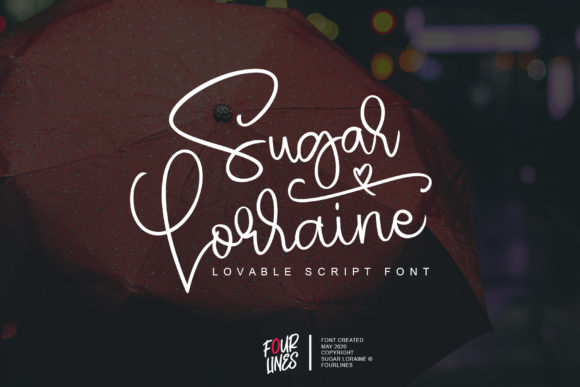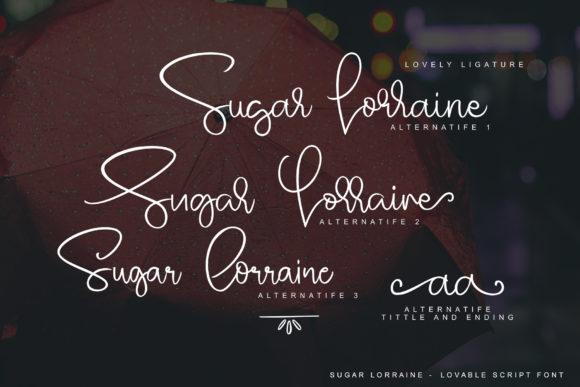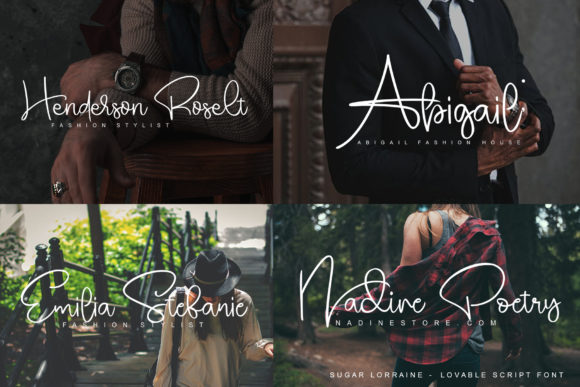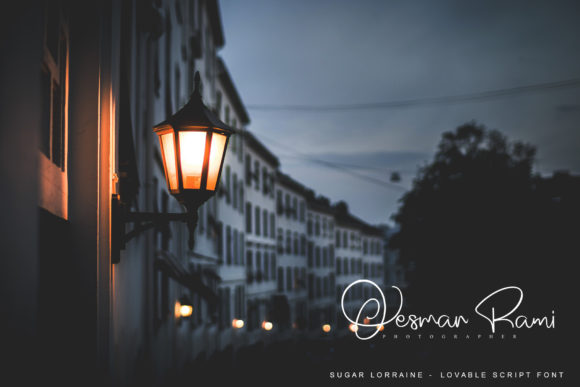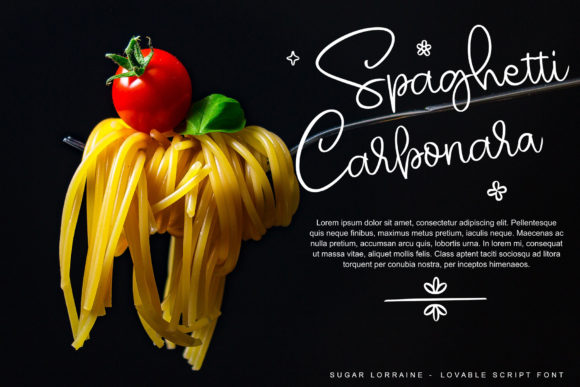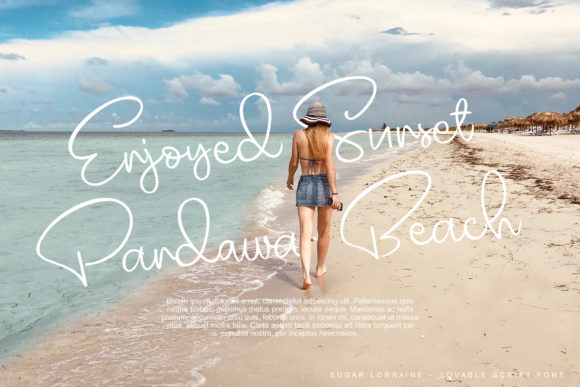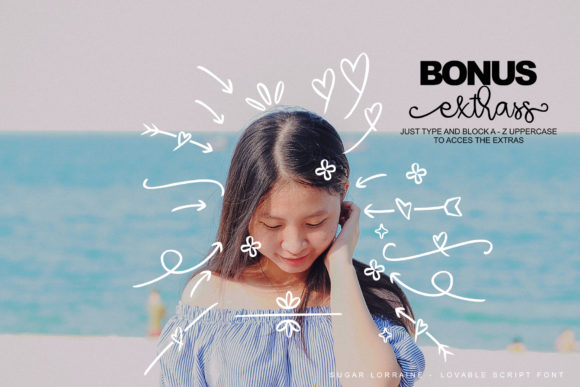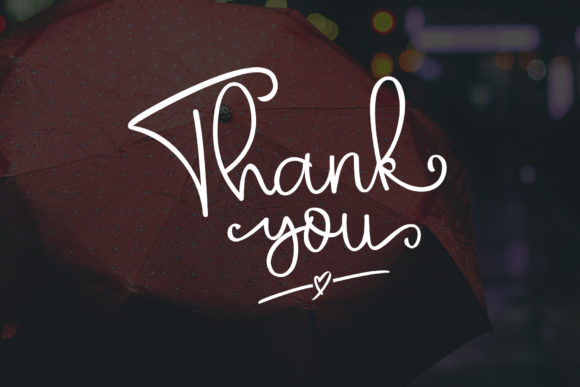
Sugar Lorraine Font
About Sugar Lorraine Font
Sugar Lorraine is an elegant and distinct handwritten font. Its sweet and friendly feel makes this font adept to a wide variety of designs. Sugar Lorraine was masterfully designed to become a true favorite!